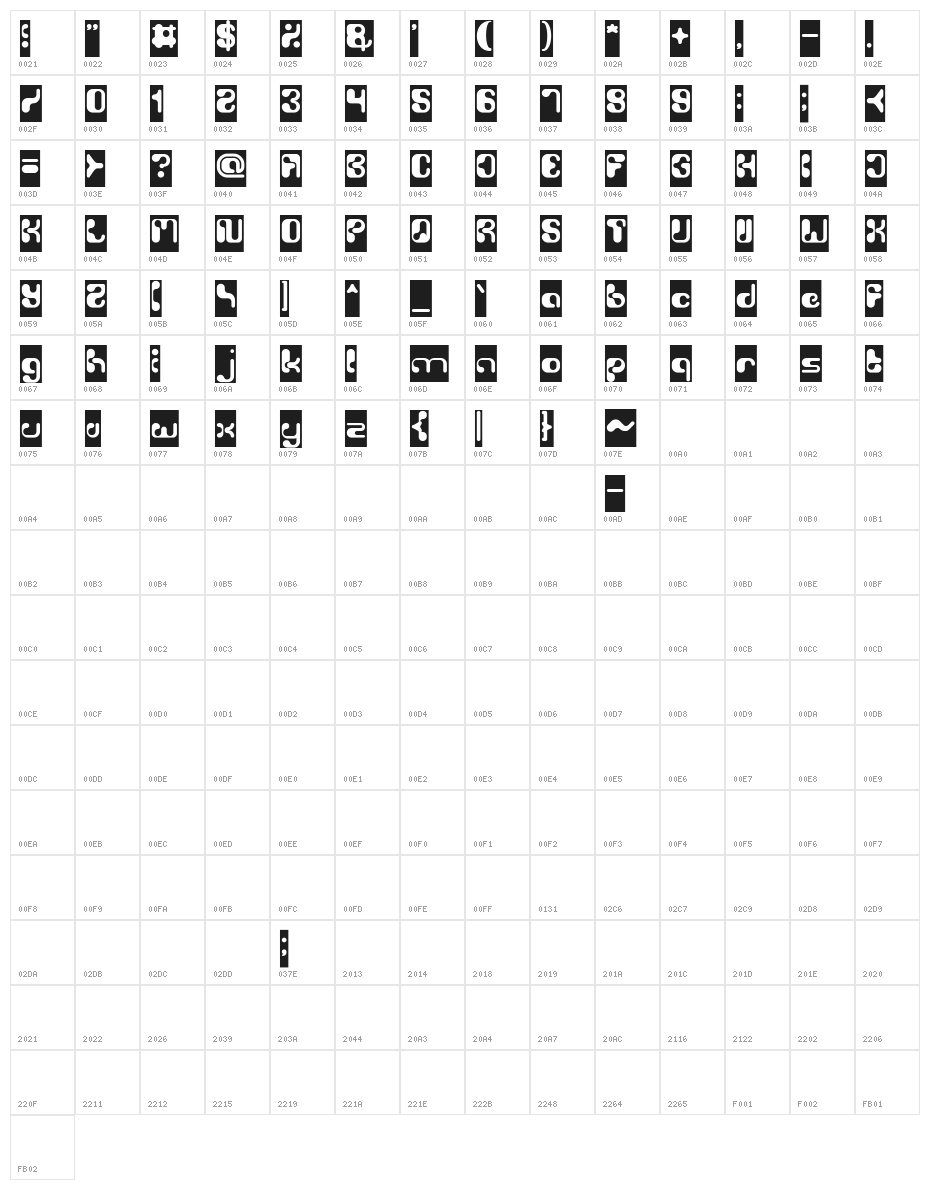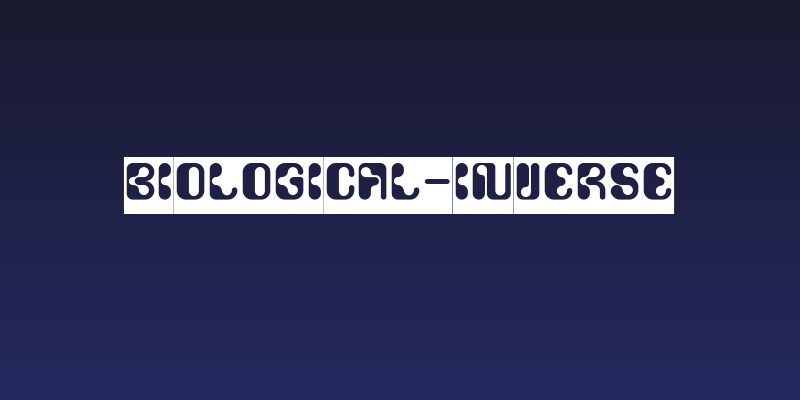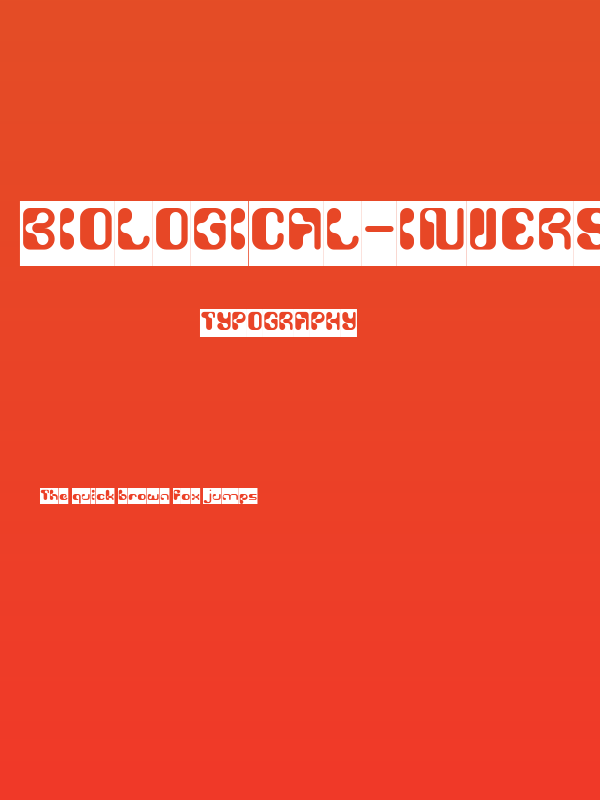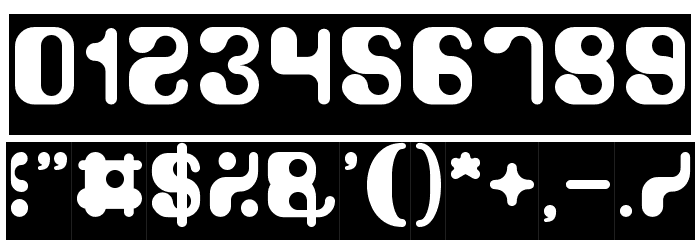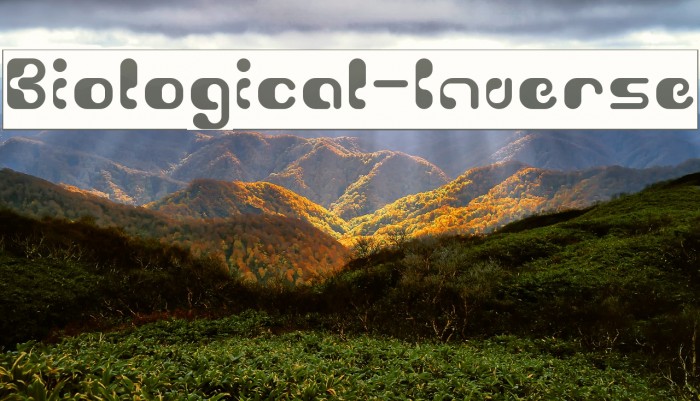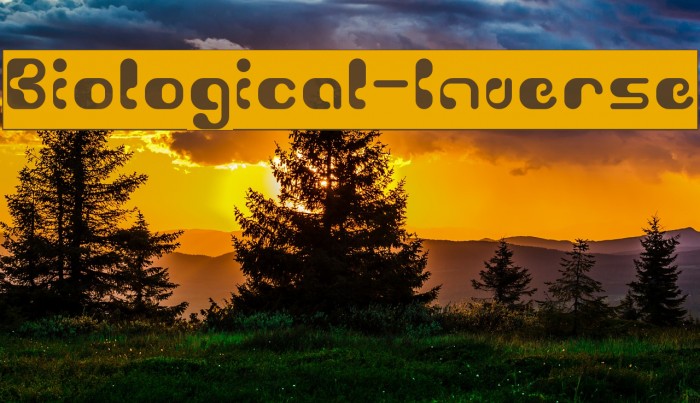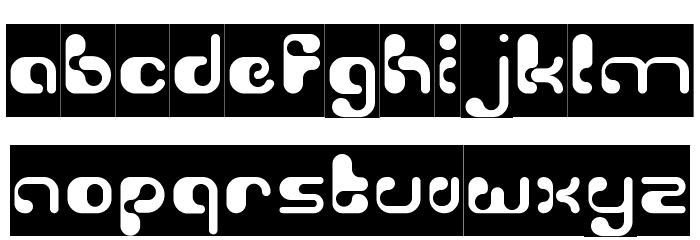
Biological-Inverse Font
Biological-Inverse Description
This font features a unique and playful design with a biological or organic feel. The characters are bold and rounded, with a distinct flow that mimics natural forms. The negative space within each letter creates an intriguing visual effect, making it stand out in any design. The uppercase and lowercase letters maintain a consistent style, while the numbers and special characters complement the overall aesthetic. This font's design is both modern and artistic, suitable for projects that require a creative and eye-catching typeface.
| Overall Style | Modern, Artistic |
| Proposed Projects | Ideal for creative projects such as posters, album covers, branding for eco-friendly products, or any design requiring a distinctive and artistic touch. |